You’ll find them grouped in 4 main categories:
Futuristic fonts
1. Space Age
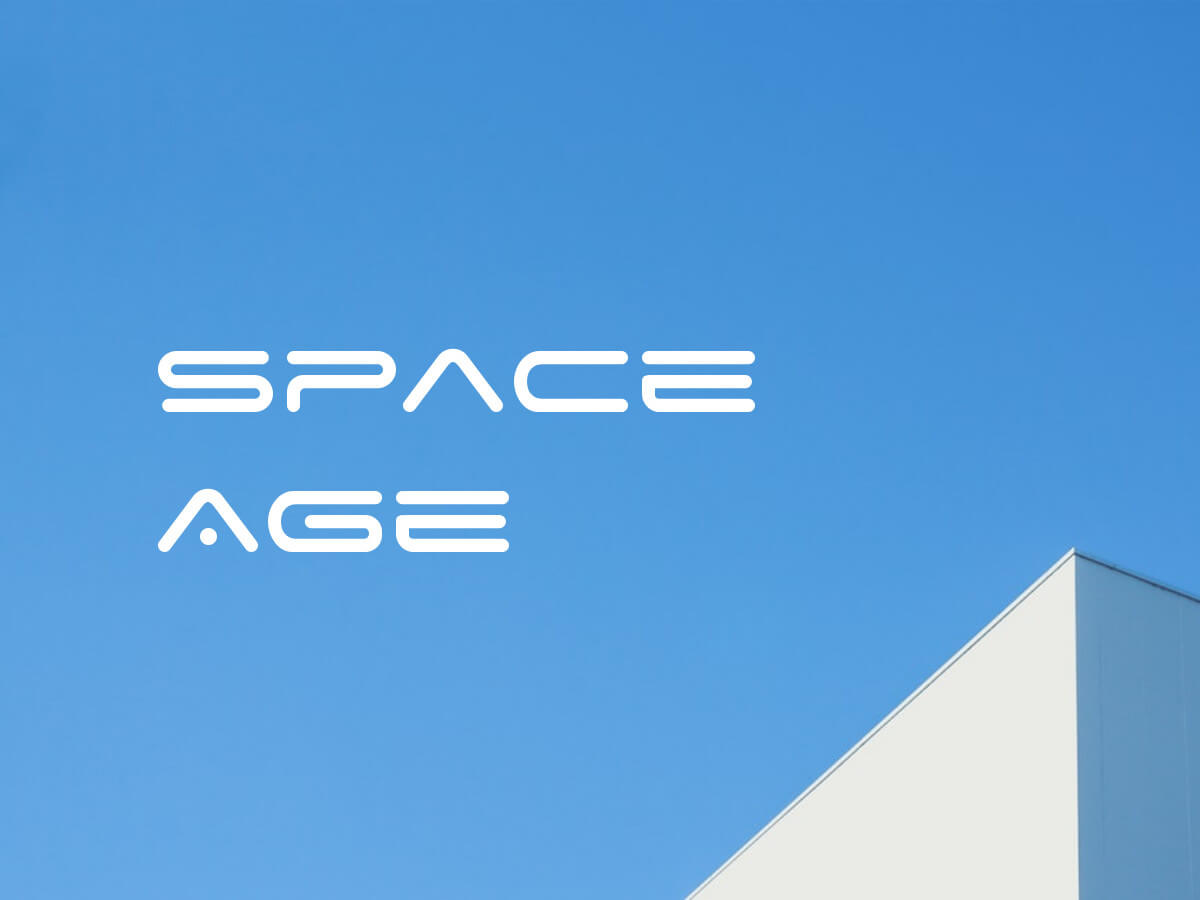
Personality: Space age transports us to the fabulous world of the Science Fiction movies. The font is futuristic and half-abstract. It definitely makes a statement wherever it may happen to be placed. This is one of the best modern fonts on the internet, and it’s free!
Suited for: logos, headlines, posters, flyers, brochures, banners.
2. Astrobia Typeface
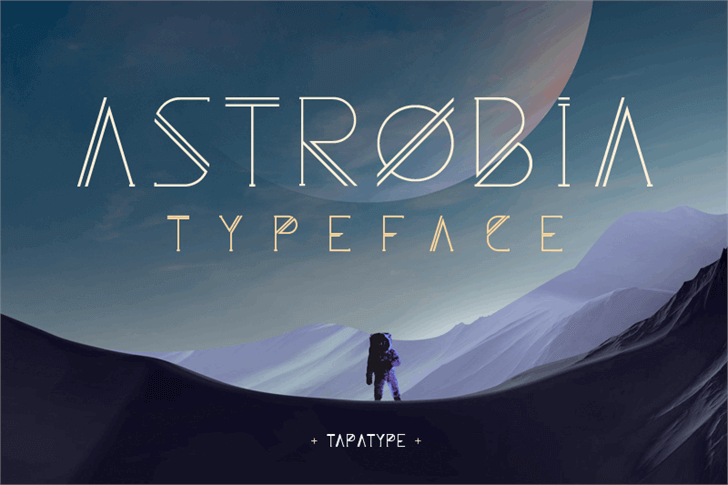
Personality: Astrobia is another creative futuristic font, inspired by the man’s quest for space. This type penetrates through the layers of time and appeals to our imagination. With thin, elongated strokes and a playful double, Astrobia can help your visuals make a great impression.
Suited for: logos, headlines, posters, brochures, flyers, banners.
3. Blu Purpl
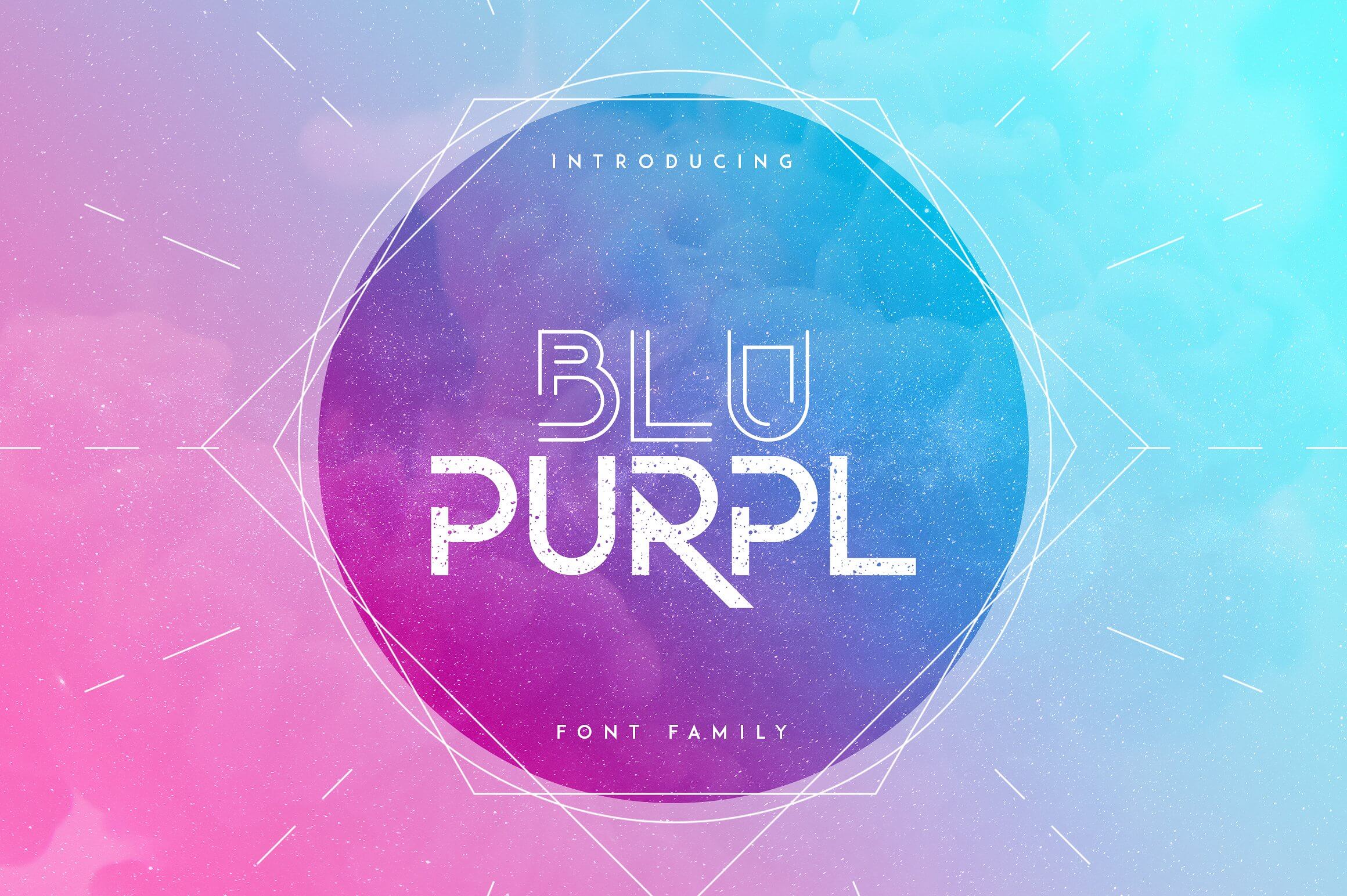
Personality: Blu Purpl is a surprisingly creative typeface that comes in 4 fonts: a regular one, a space pattern type, an outline, and a double line font.
Combining these 4 fonts, you can create some amazing logos, headlines, and packaging designs.
Suited for: logos, headlines, branding and packaging, music concerts & albums posters and display ads.
4. Borg
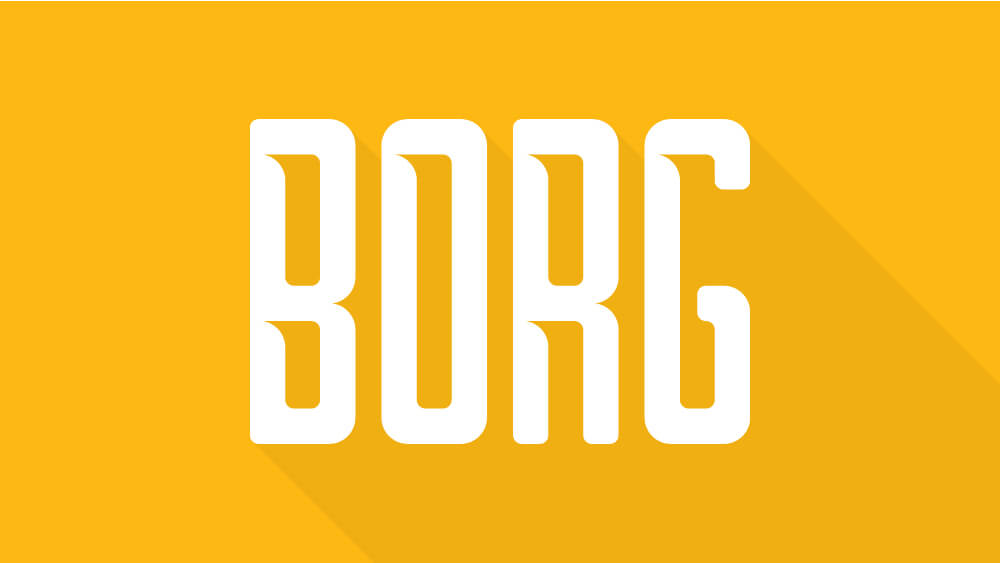
Personality: Borg is futuristic, geometric and bold. David Sum, the designer, confesses that he drew his inspiration from the Swedish furniture design for this font.
Suited for: logos, headlines, branding and packaging.
5. Suissnord
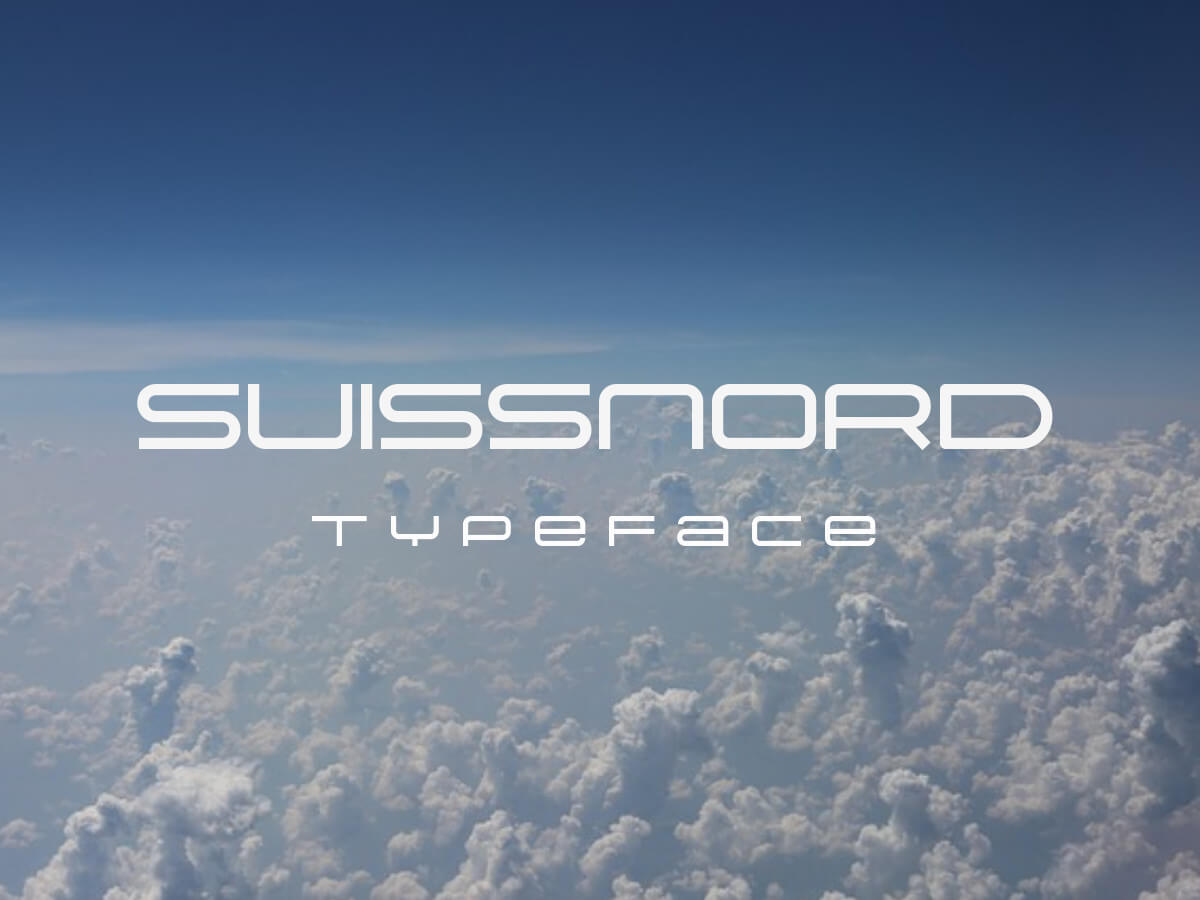
Personality: Minimalistic and square-shaped, the Suissnord typeface embodies the character of the future. It is simple, neat and to the point. While Suissnord uses uppercase mostly, you’ll find some lowercase letters too.
Suited for: logos, headlines, branding and packaging, technology and devices brands, men’s fashion brands.
6. Centauri
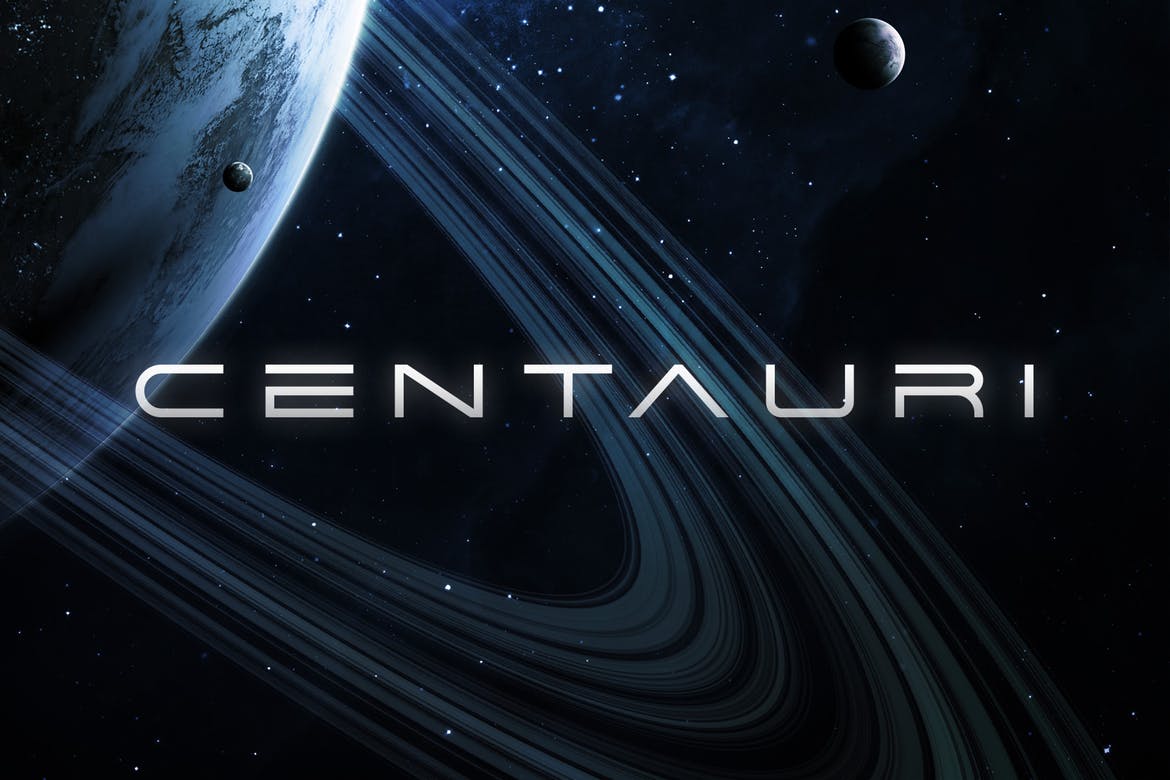
Personality: Centauri uses wide minimalistic letters to create a space effect. Looking at this font, one might get the impression that a spectacular Science Fiction movie is about to begin.
If you’re looking for modern fonts for a logo, this type could help you shape a cool brand.
Suited for: logos, headlines, branding and packaging, posters, display ads.
7. Line Tech
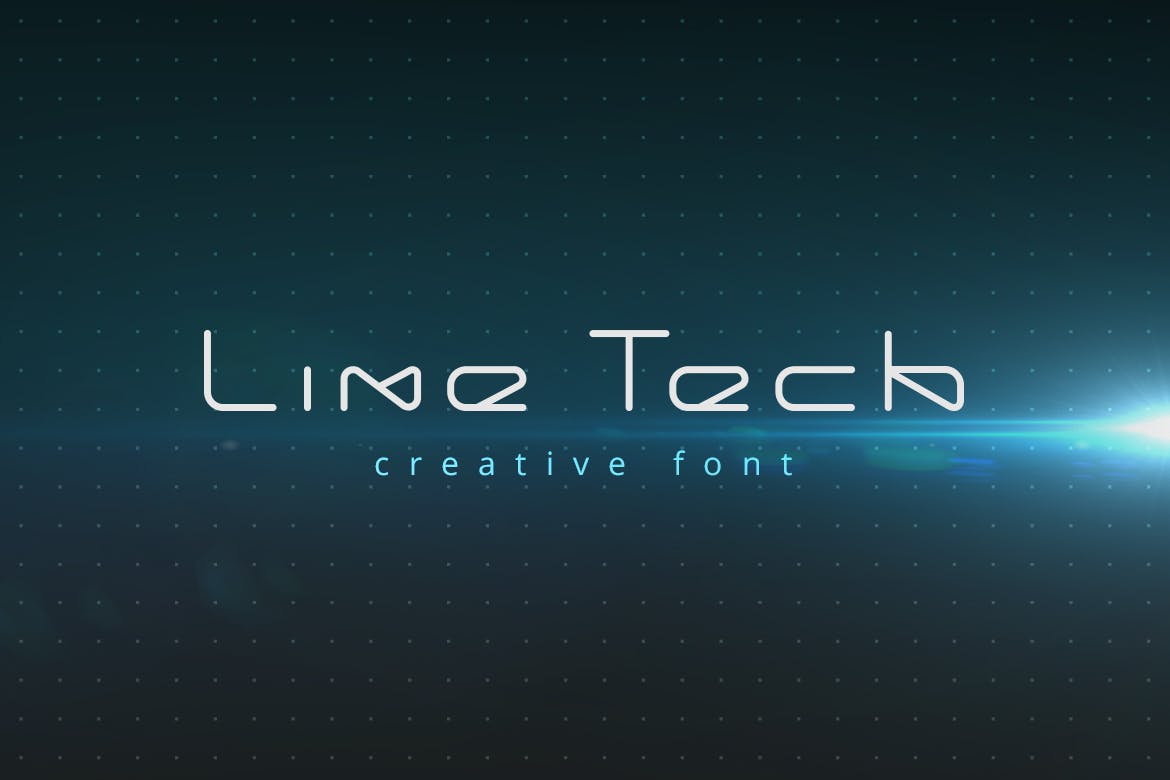
Personality: Line Tech is a linear futuristic type suited for web. The tall uppercases contrast well with the small, square-shaped lowercases, giving it a balanced feel.
Suited for: logos, technology, science, web, computer areas.
8. Gizmo
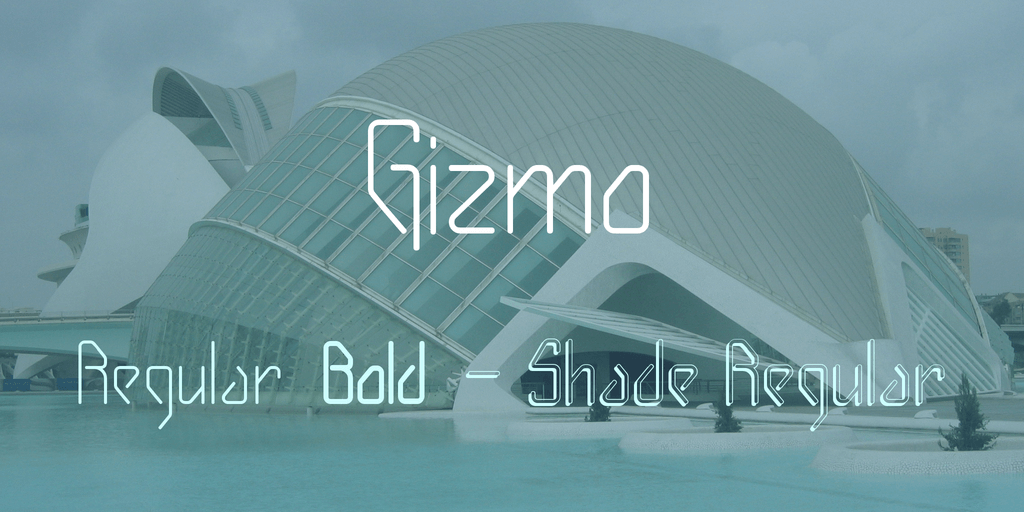
Personality: Gizmo is an angular futuristic font suited for the web environment. While minimalistic, Gizmo has a strong personality, because each letter is drawn in a unique way.
Suited for: logos, branding and packaging, websites, display ads, technology brands and devices.
9. Farewell Pro
Personality: Farewell Pro is (obviously) all about space and the conquest of space. Inspired by the space satellites, this futuristic font creates an SF atmosphere. The designer used satellite antennae elements to create each letter and spaced them wide enough to make a background matter.
Suited for: logos, packaging, web, display ads.
10. Organo
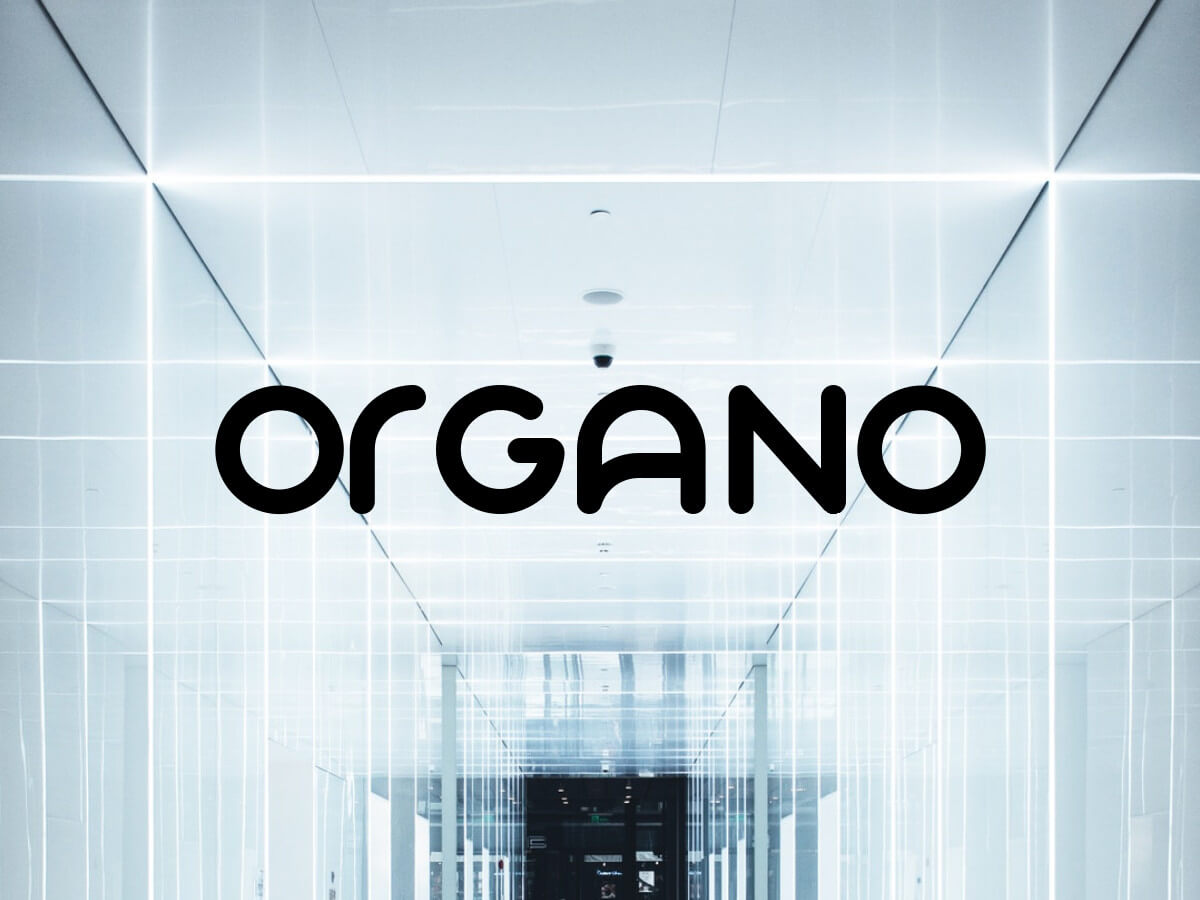
Personality: Organo is perfectly suited for logo design. With curved uppercases, this font can help a brand stand out and make a positive impression.
Suited for: logo design, branding, web, display ads.
Geometric fonts
11. Privus
Personality: Each of Privus’ letters is a stylized labyrinth. This graphic effect is appealing to the eye and stands out from the crowd. It is an excellent geometric font for logo design, especially for brands that deal with advanced technology.
Suited for: logo design, tech brands.
12. Metria
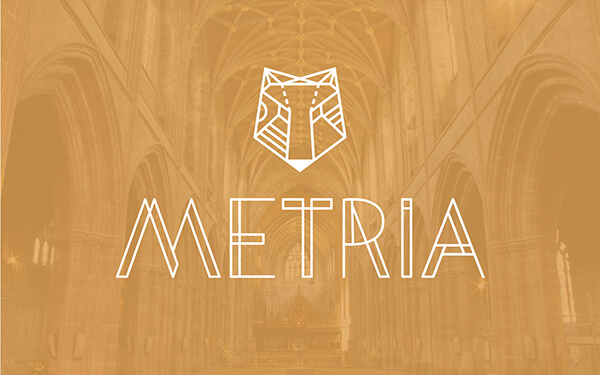
Personality: Metria uses a combination of geometric sharp angles and Art Deco double lines to make the words come to life.
Suited for: logo design, fashion, jewelry, and luxury brands.
13. Kaira
Personality: Kaira is a beautiful modern decorative typeface. It comes in two weights (bold and regular), so you can play around and create outstanding designs.